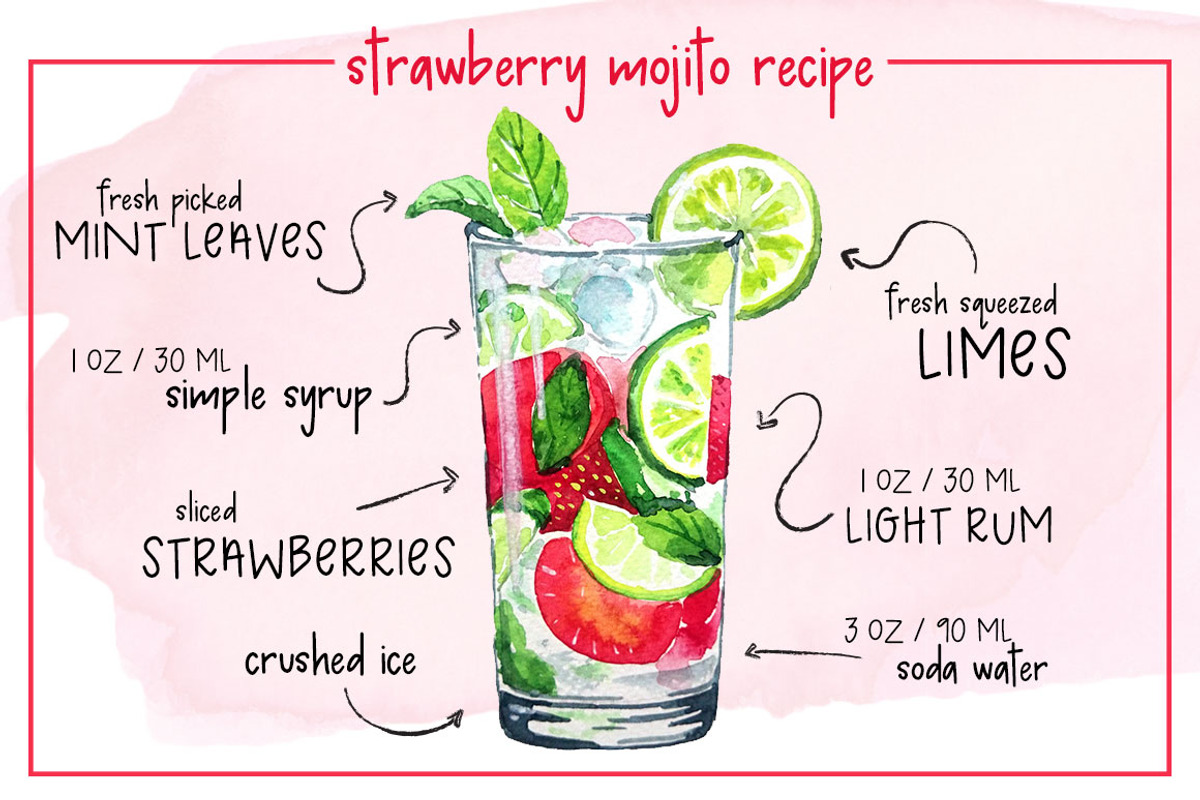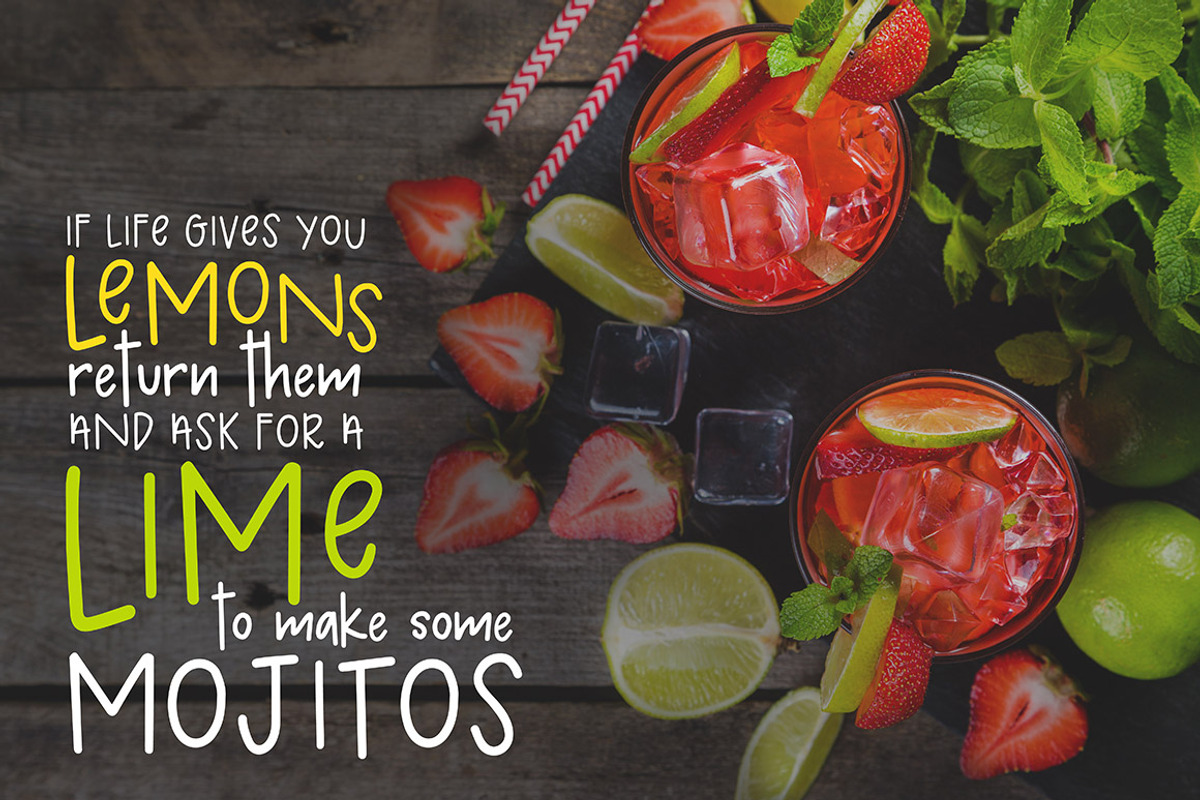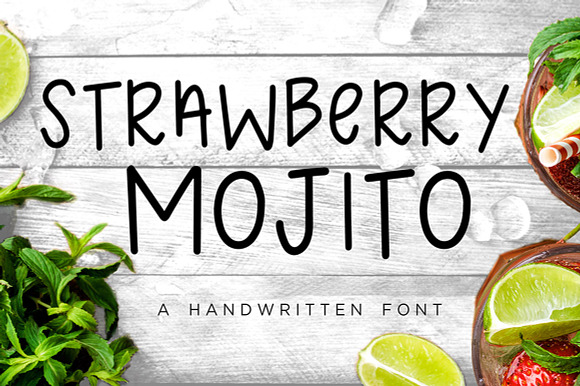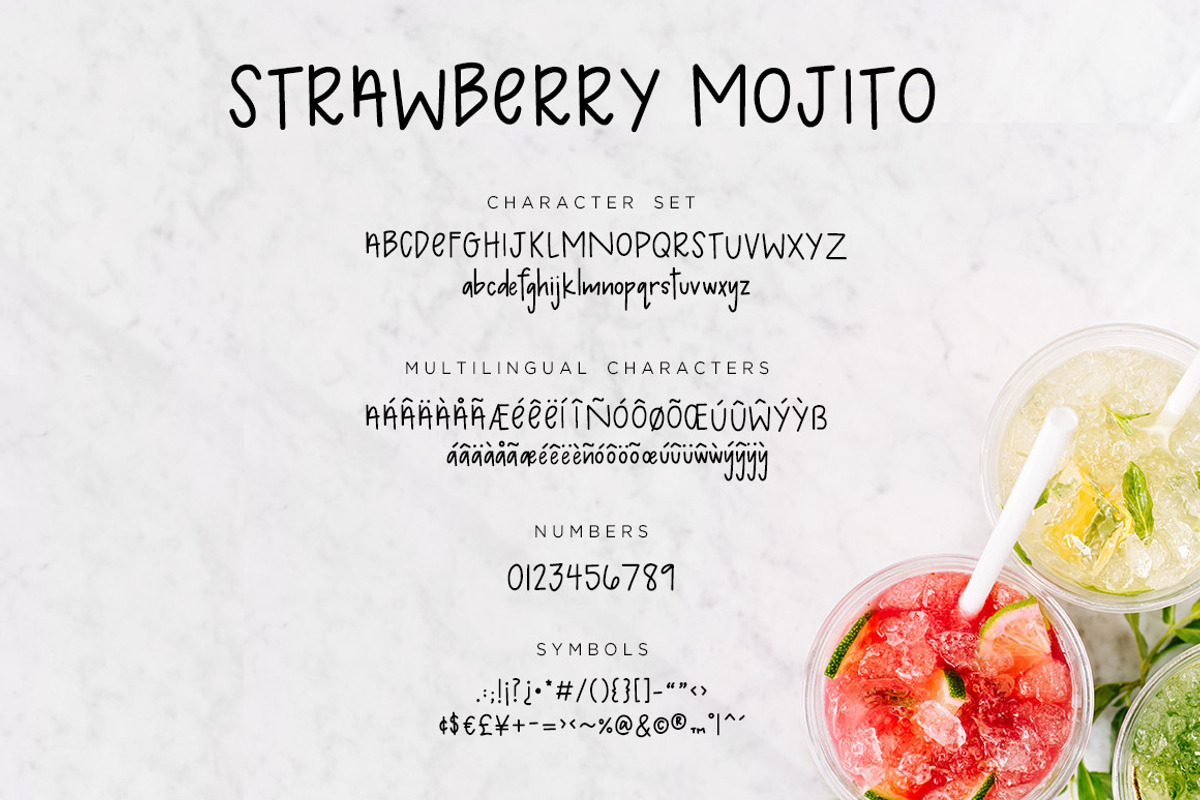
Strawberry Mojito Font
Add a refreshing burst of fun to your creative designs with Strawberry Mojito!
This playful font is perfect for the summer!
Strawberry Mojito was designed by Anika, from Aneeks Designs, and was inspired by her handwriting and favorite summer drink! A clean, sans serif font that can be used on it’s own or mixed with other script and serif fonts.